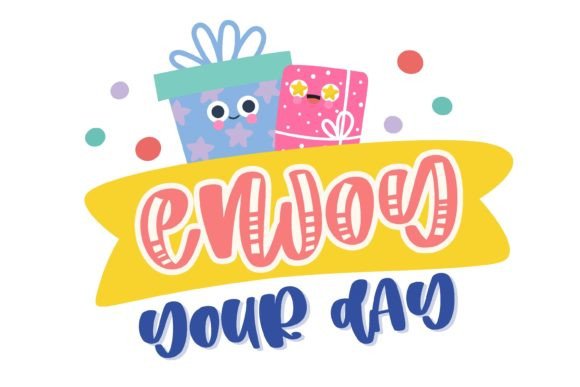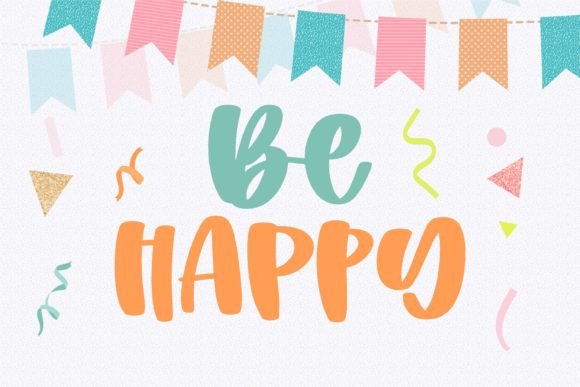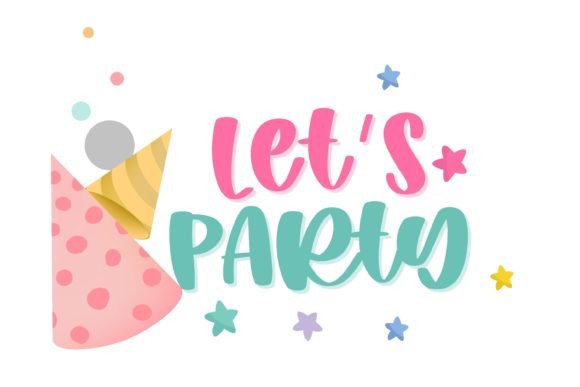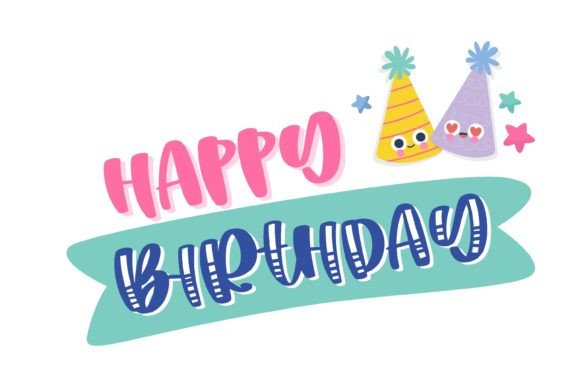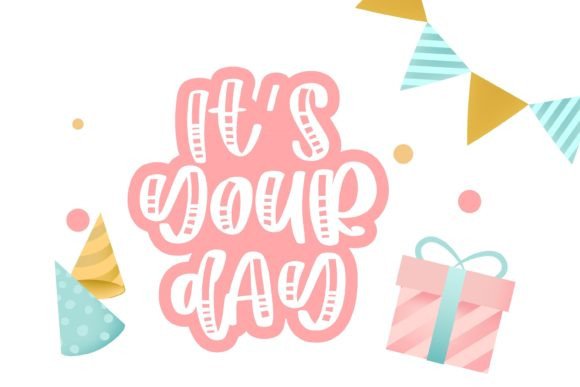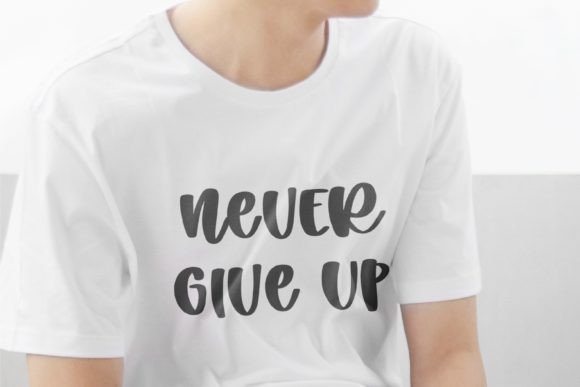
Introducing Birth Day Font: The Sweet and Cute Handwritten Font for Your Creative Projects
Are you looking for a font that can add a touch of sweetness and cuteness to your designs? Look no further than Birth Day Font! This beautiful handwritten font is perfect for creating stunning wedding invitations, gorgeous stationery art, eye-catching social media posts, and so much more. In this article, we’ll dive into the features and benefits of Birth Day Font, and explore how you can use it to take your designs to the next level.
A Versatile and Lovable Font
Birth Day Font is a sweet and cute handwritten font that is incredibly versatile. Its unique style is sure to capture the hearts of designers and crafters alike. Whether you’re creating romantic wedding invitations, personalized stationery, or engaging social media content, Birth Day Font is the perfect choice. Its flowing script and delicate lines make it ideal for a wide range of creative projects.
Key Features of Birth Day Font
- Sweet and Cute Handwritten Style: Birth Day Font boasts a sweet and cute handwritten style that is sure to add a touch of personality to your designs.
- Incredibly Versatile: This font is perfect for a wide range of creative projects, from wedding invitations to social media posts.
- Easy to Read: Despite its delicate lines, Birth Day Font is easy to read, making it perfect for both digital and print designs.
- High-Quality Design: This font is designed with high-quality craftsmanship, ensuring that it looks stunning in any design.
Ideas for Using Birth Day Font
So, how can you use Birth Day Font in your designs? Here are a few ideas to get you started:
- Wedding Invitations: Create stunning wedding invitations that set the tone for a beautiful and romantic celebration.
- Stationery Art: Design gorgeous stationery art, including notecards, greeting cards, and journals.
- Social Media Posts: Add a touch of sweetness and cuteness to your social media posts, including Instagram stories and Facebook updates.
- DIY Crafts: Use Birth Day Font to create custom DIY crafts, such as party decorations, gift tags, and more.
Tips for Getting the Most Out of Birth Day Font
To get the most out of Birth Day Font, here are a few tips to keep in mind:
- Experiment with Different Sizes: Try out different font sizes to see how Birth Day Font looks in various contexts.
- Pair with Other Fonts: Experiment with pairing Birth Day Font with other fonts to create unique and interesting combinations.
- Use in Digital and Print Designs: Don’t be afraid to use Birth Day Font in both digital and print designs – it’s versatile enough to work well in either format.
Birth Day Font is a sweet and cute handwritten font that is sure to capture the hearts of designers and crafters alike. Its incredibly versatile style makes it perfect for a wide range of creative projects, from wedding invitations to social media posts. With its flowing script and delicate lines, Birth Day Font is the perfect choice for anyone looking to add a touch of sweetness and cuteness to their designs. So why wait? Download Birth Day Font today and start creating stunning designs that will leave a lasting impression!